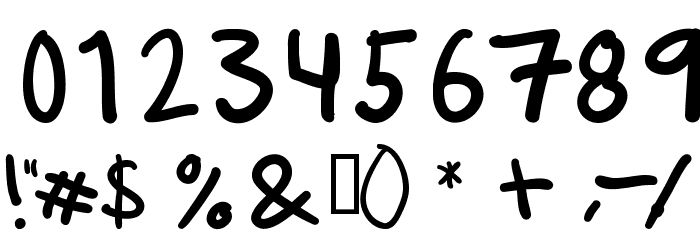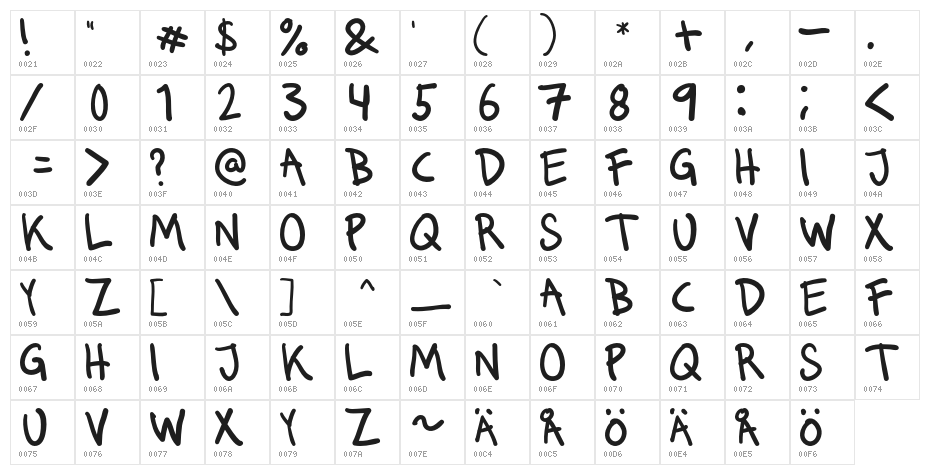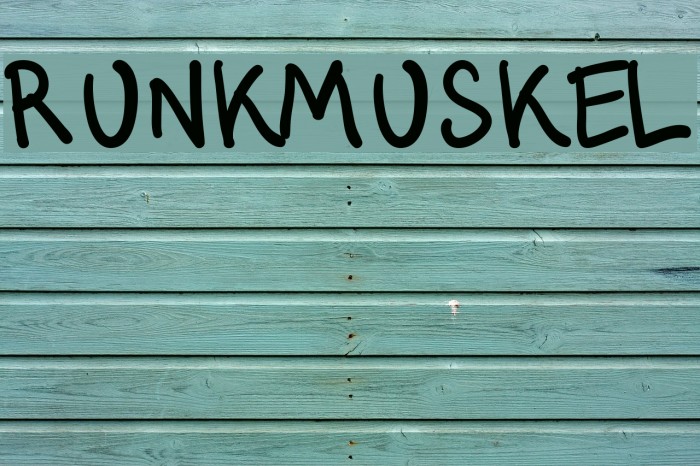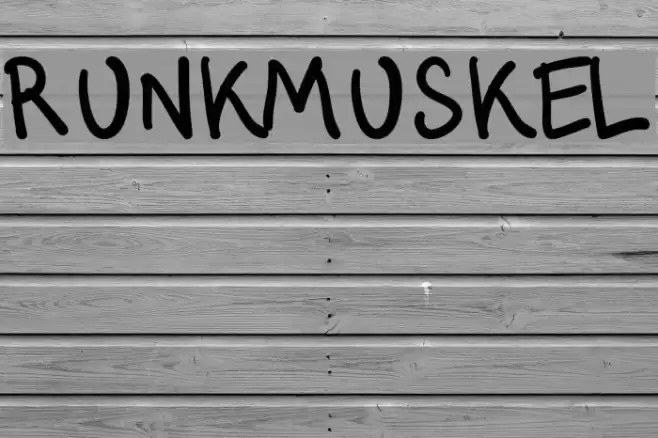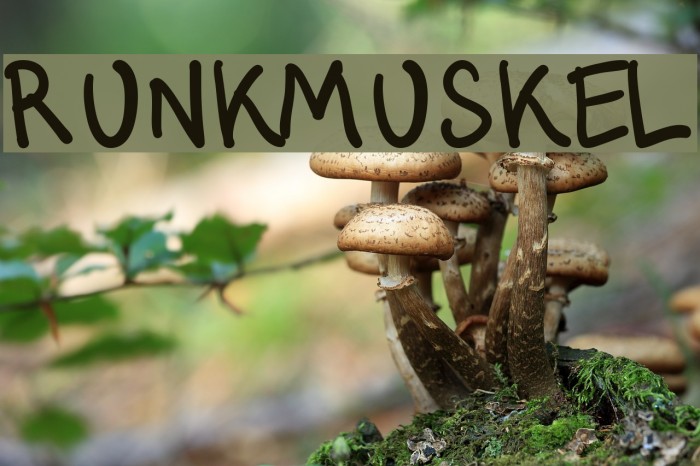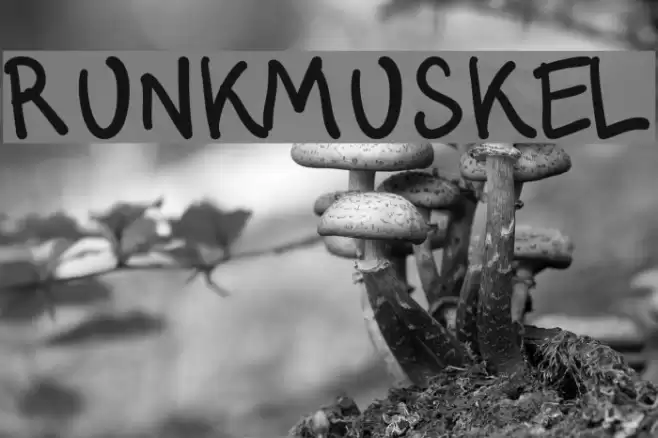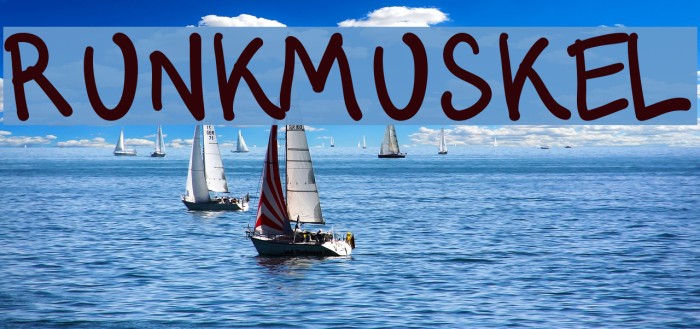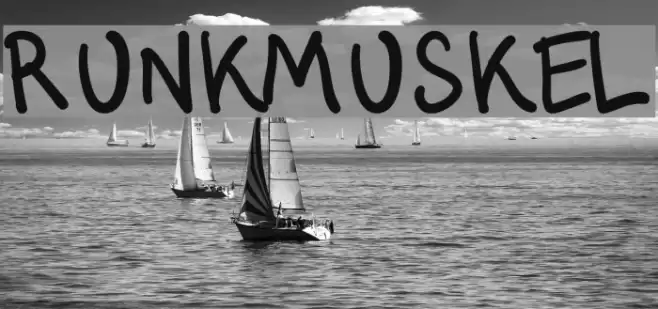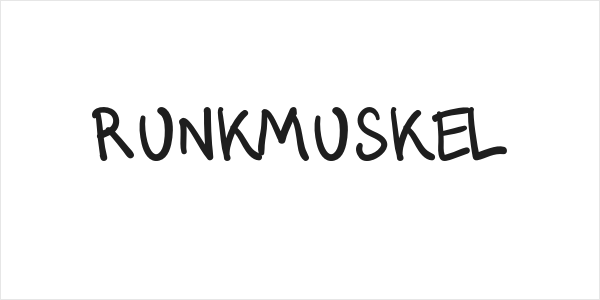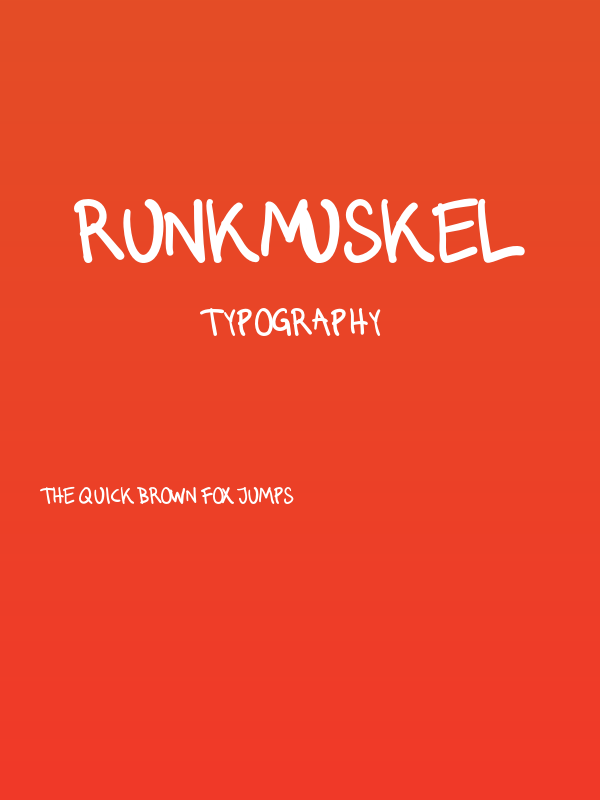
Runkmuskel Font
Runkmuskel Description
This font features a playful and casual handwritten style, characterized by its irregular strokes and organic flow. The letters are slightly slanted, giving a dynamic and lively appearance. The uppercase and lowercase characters maintain a consistent style, with rounded edges and a friendly demeanor. The numerals and special characters complement the overall aesthetic, making it suitable for informal and creative projects. Its unique charm lies in the imperfect, human-like touch that adds personality to any design.
| Proposed Projects | Ideal for greeting cards, children's books, casual branding, and social media graphics. |